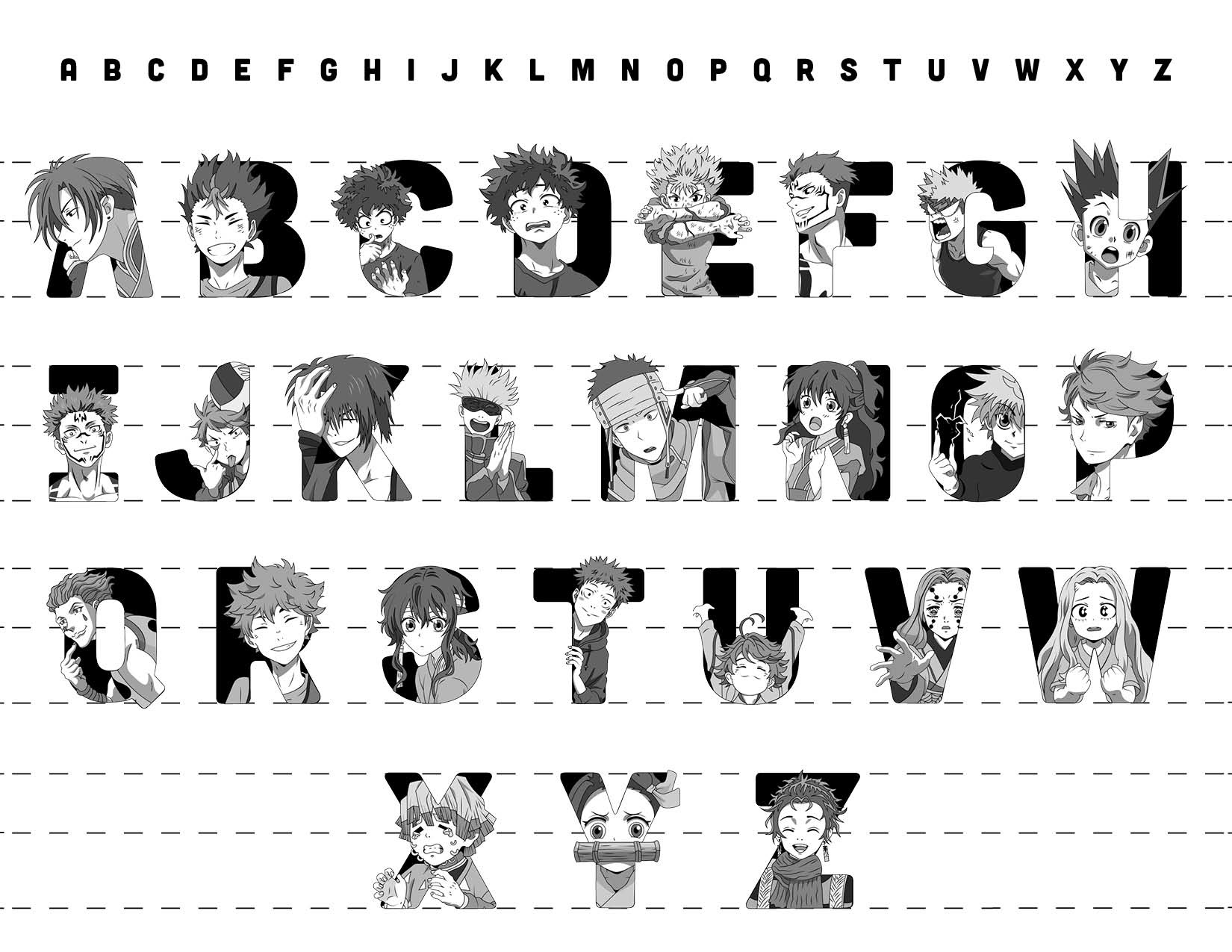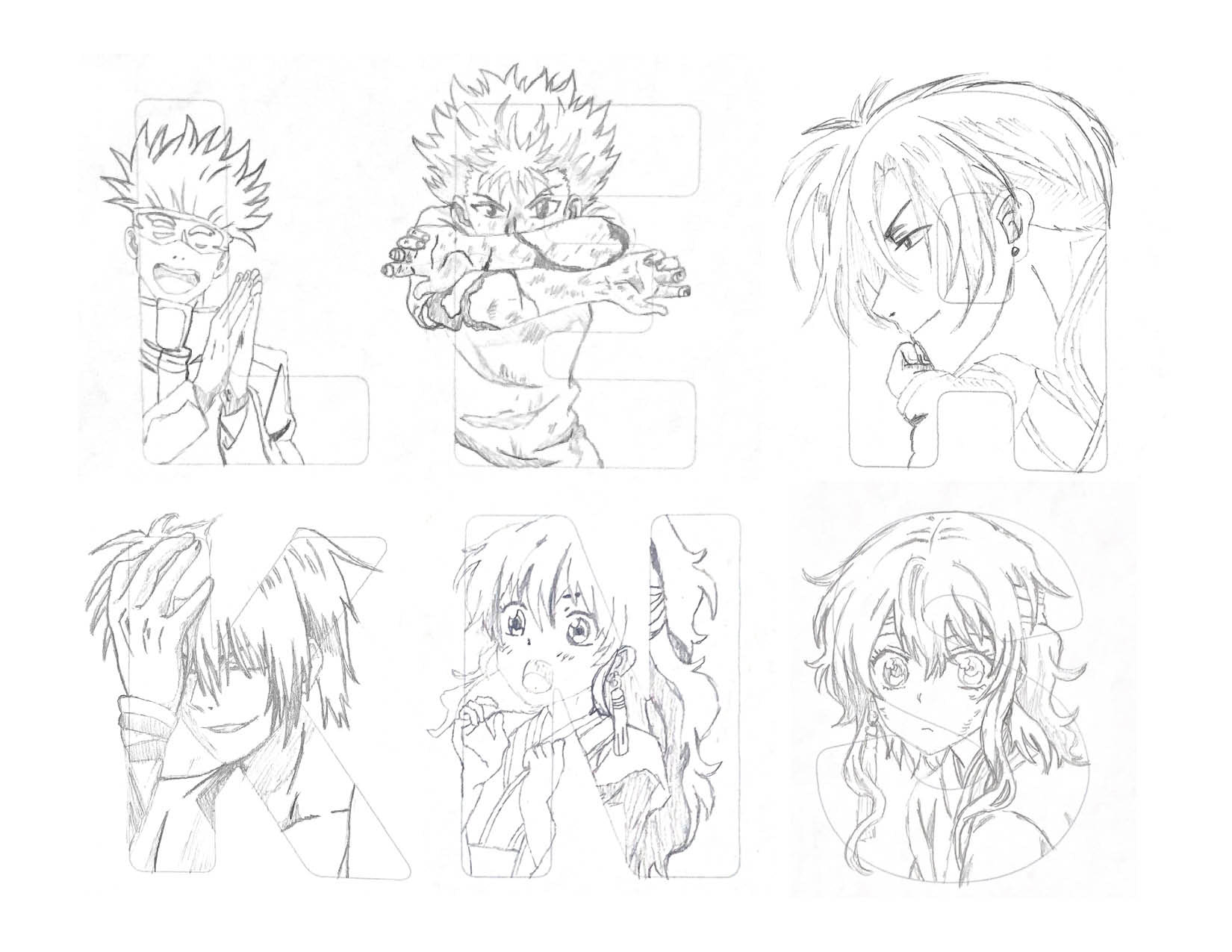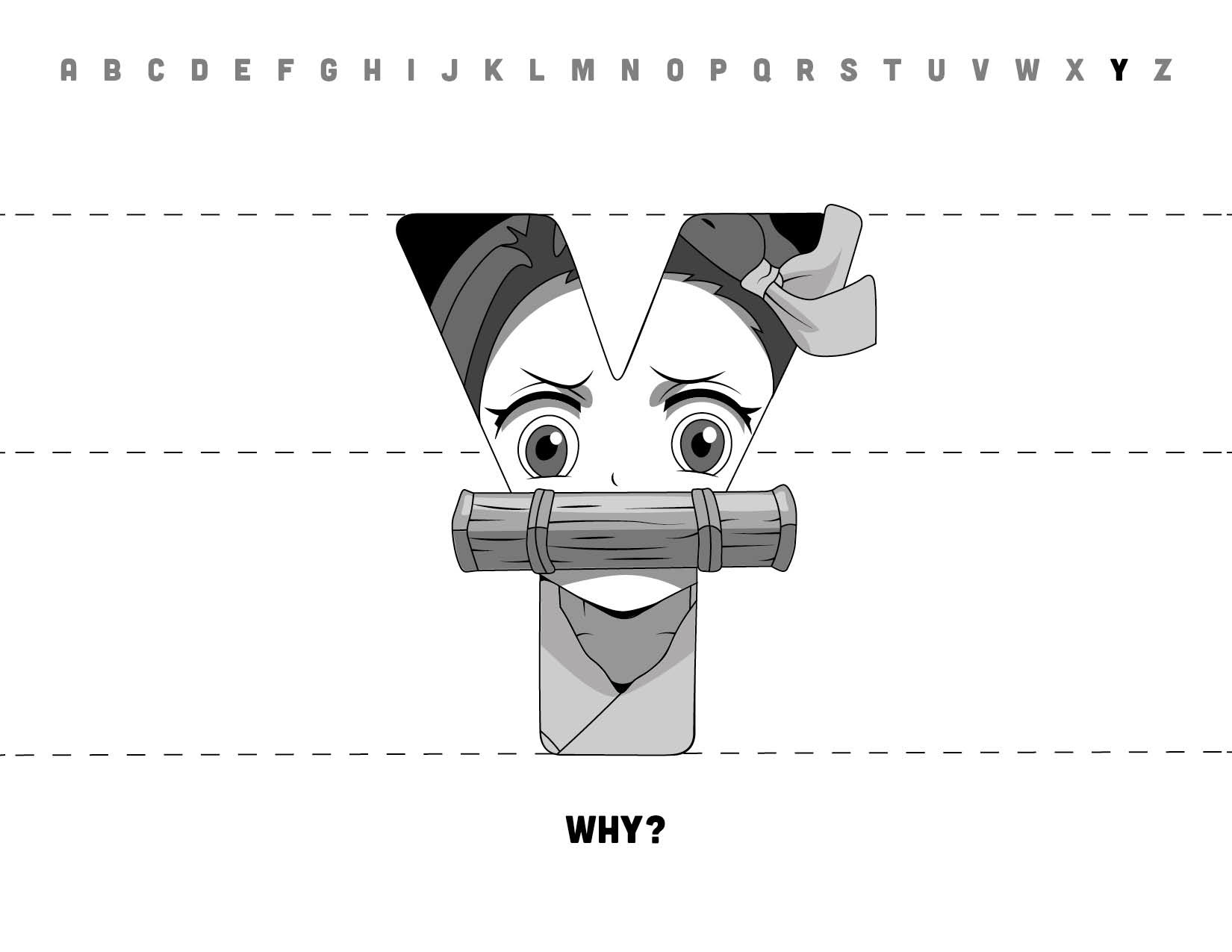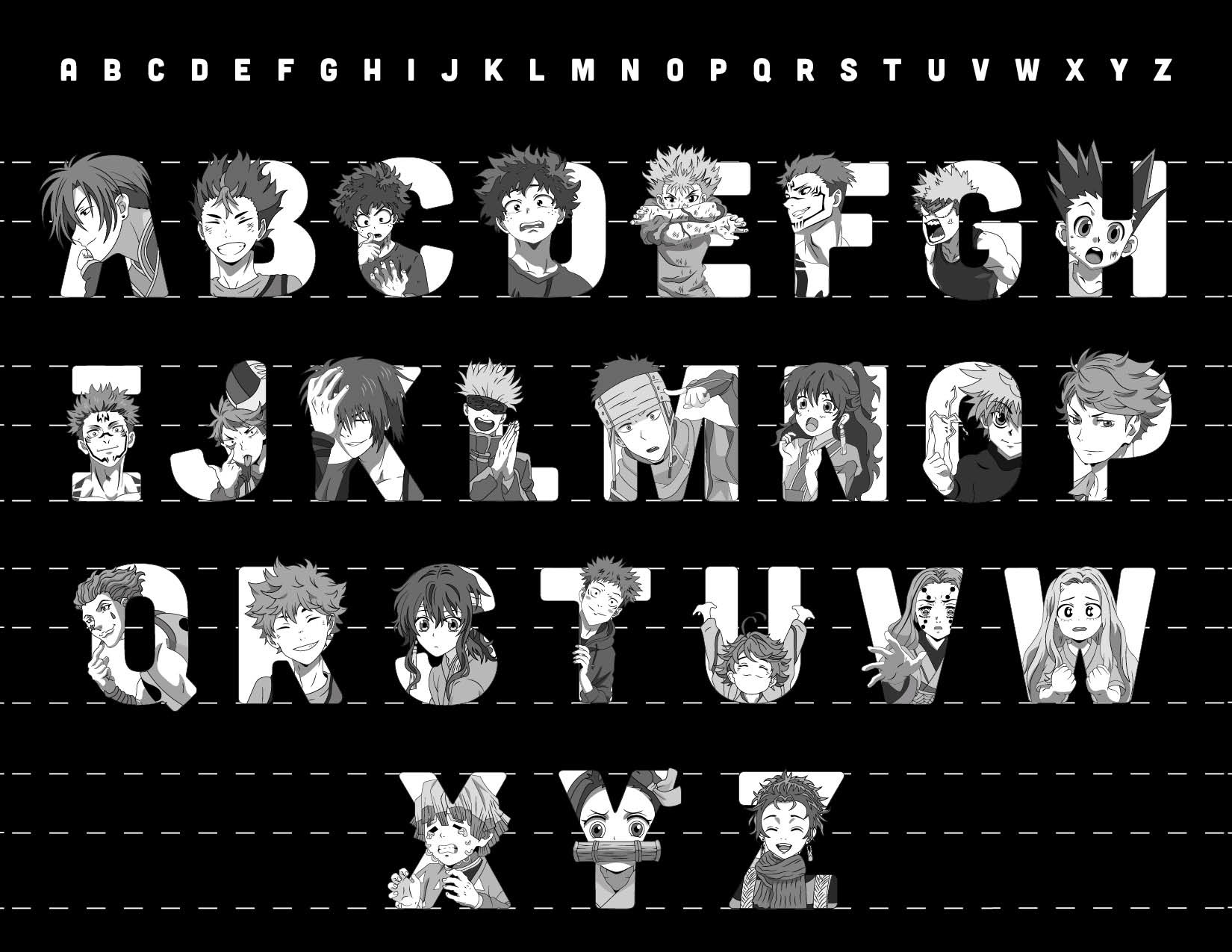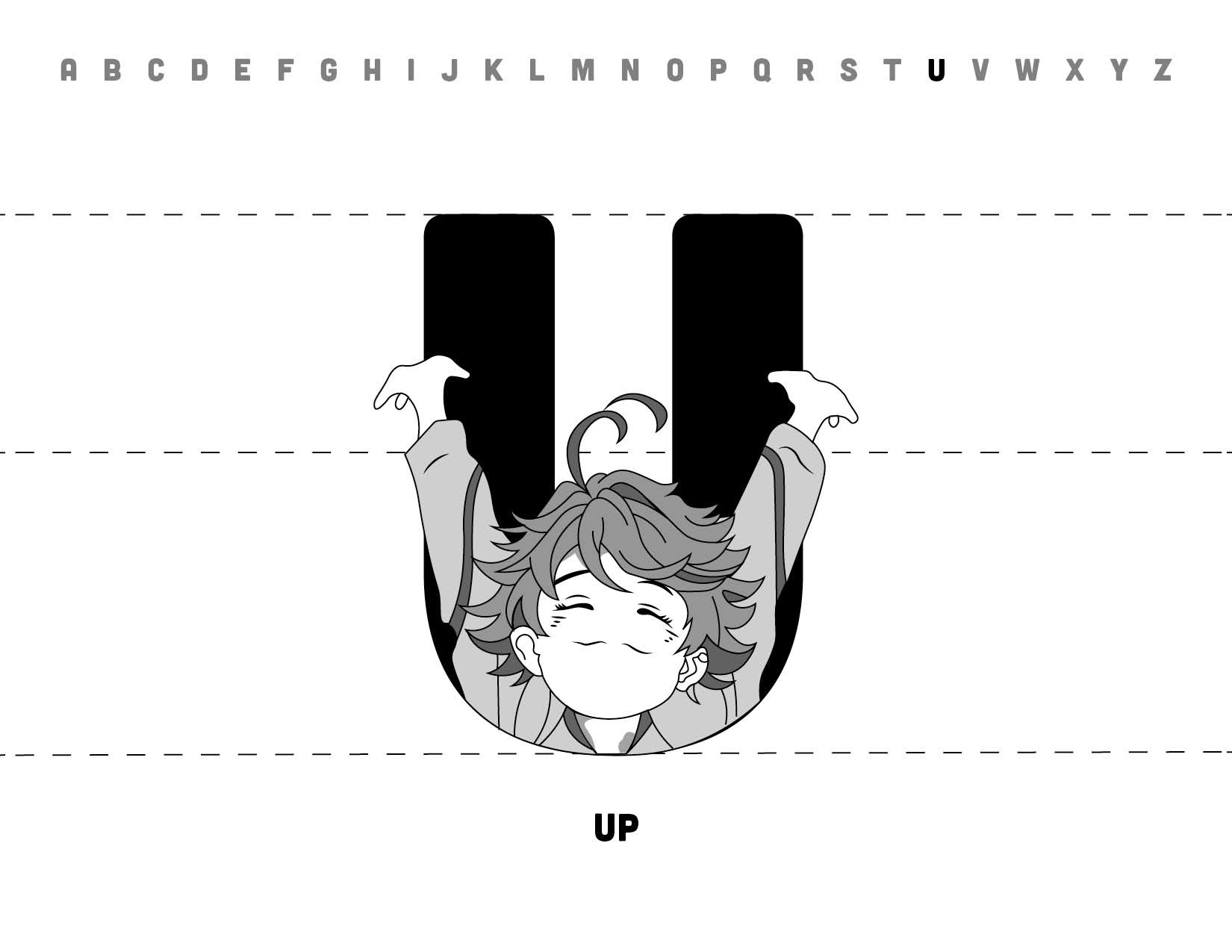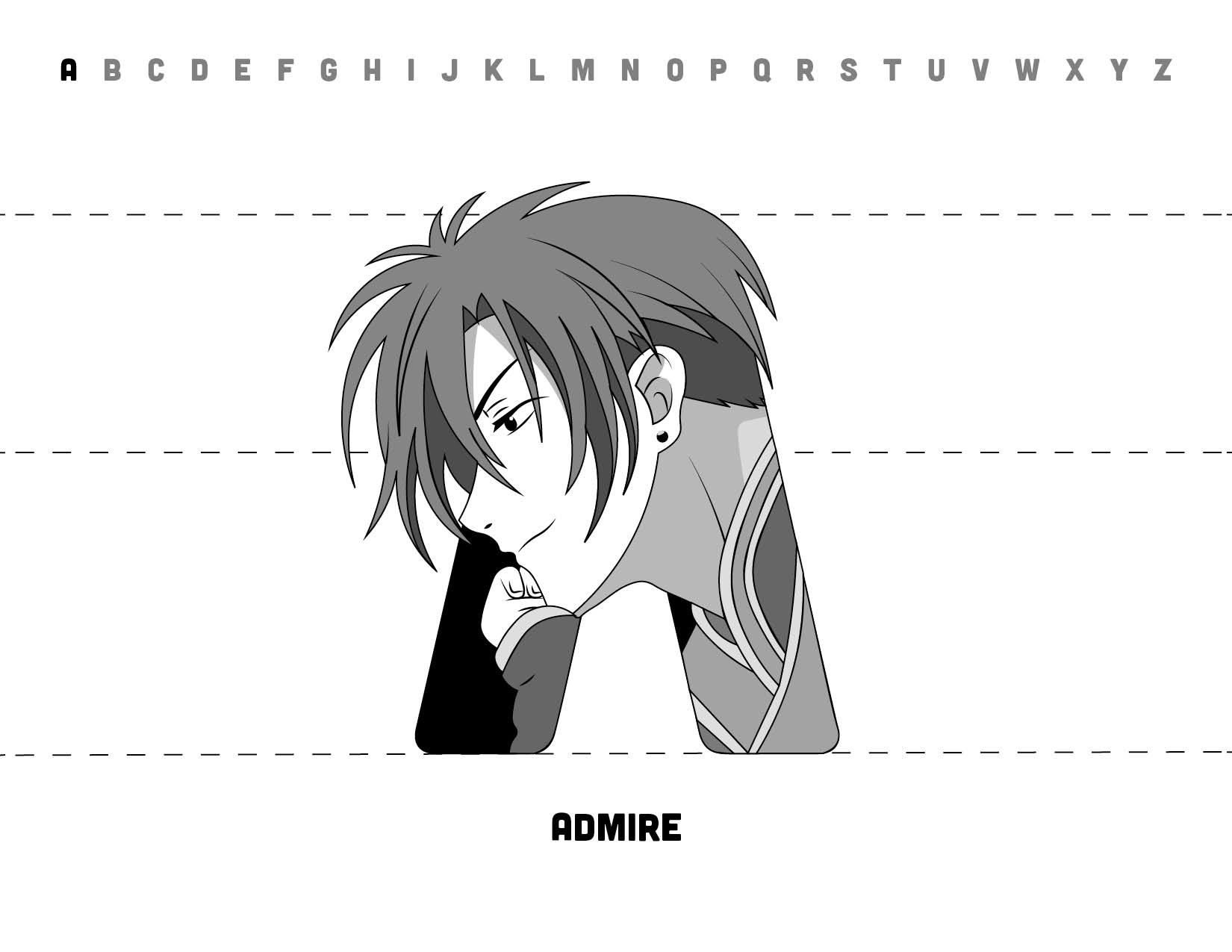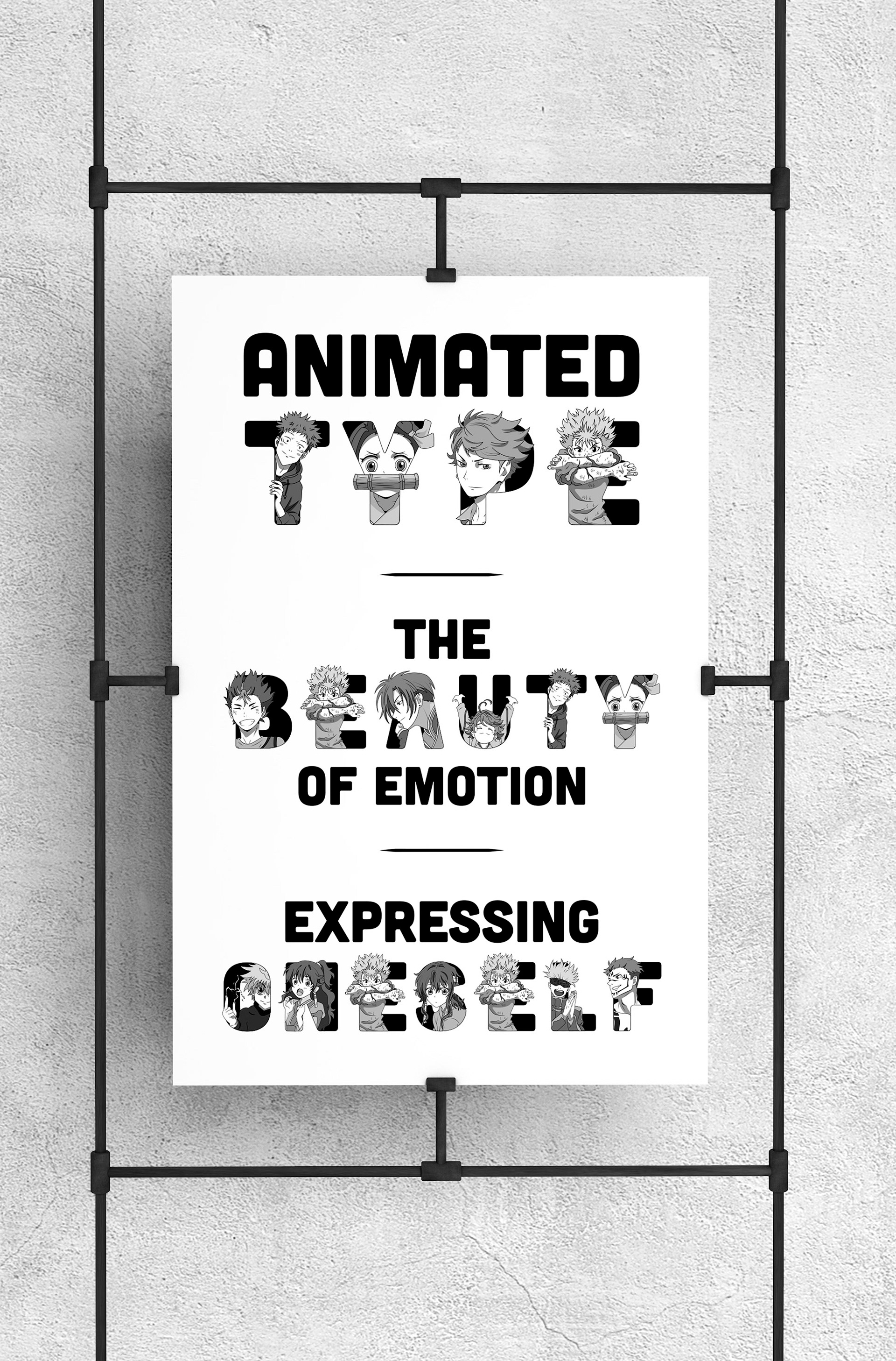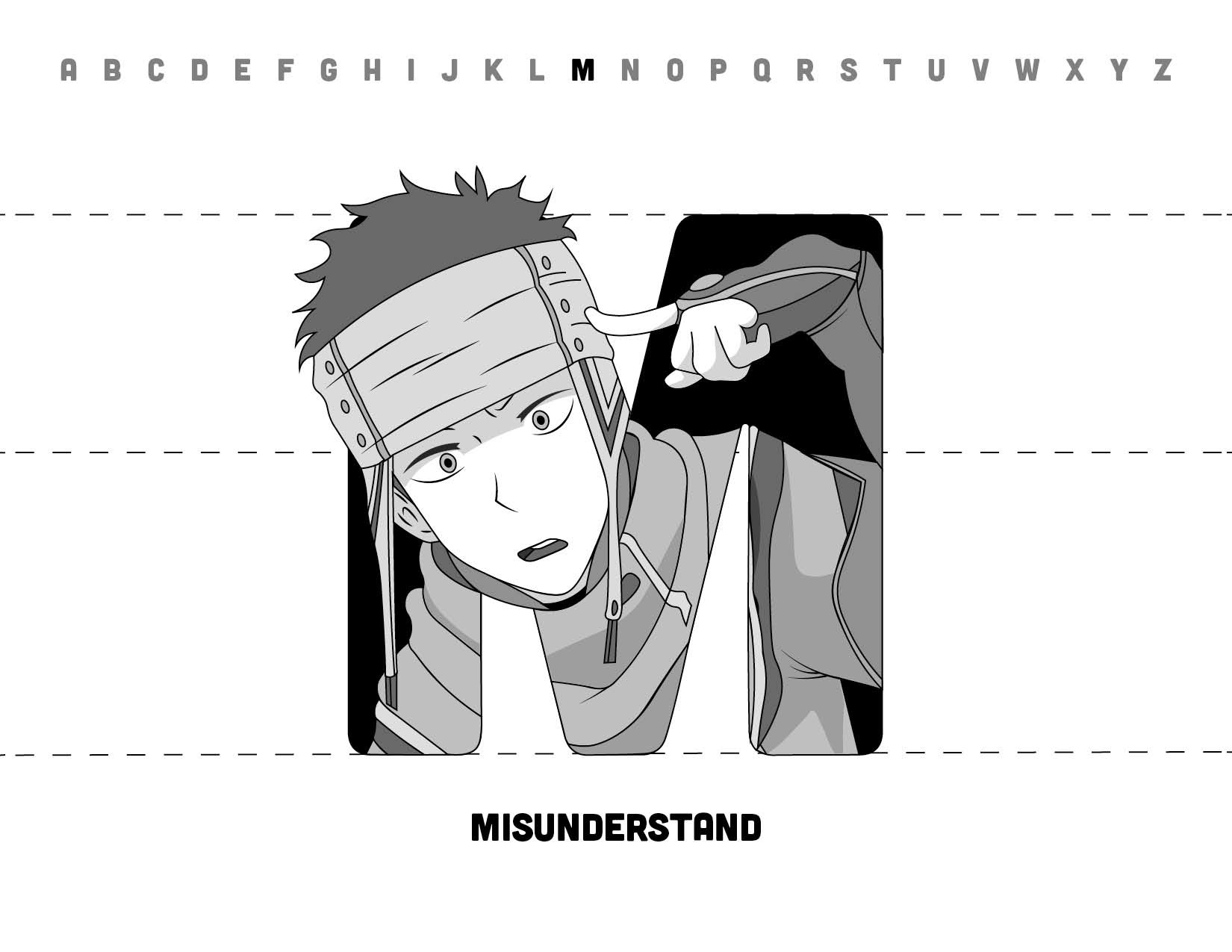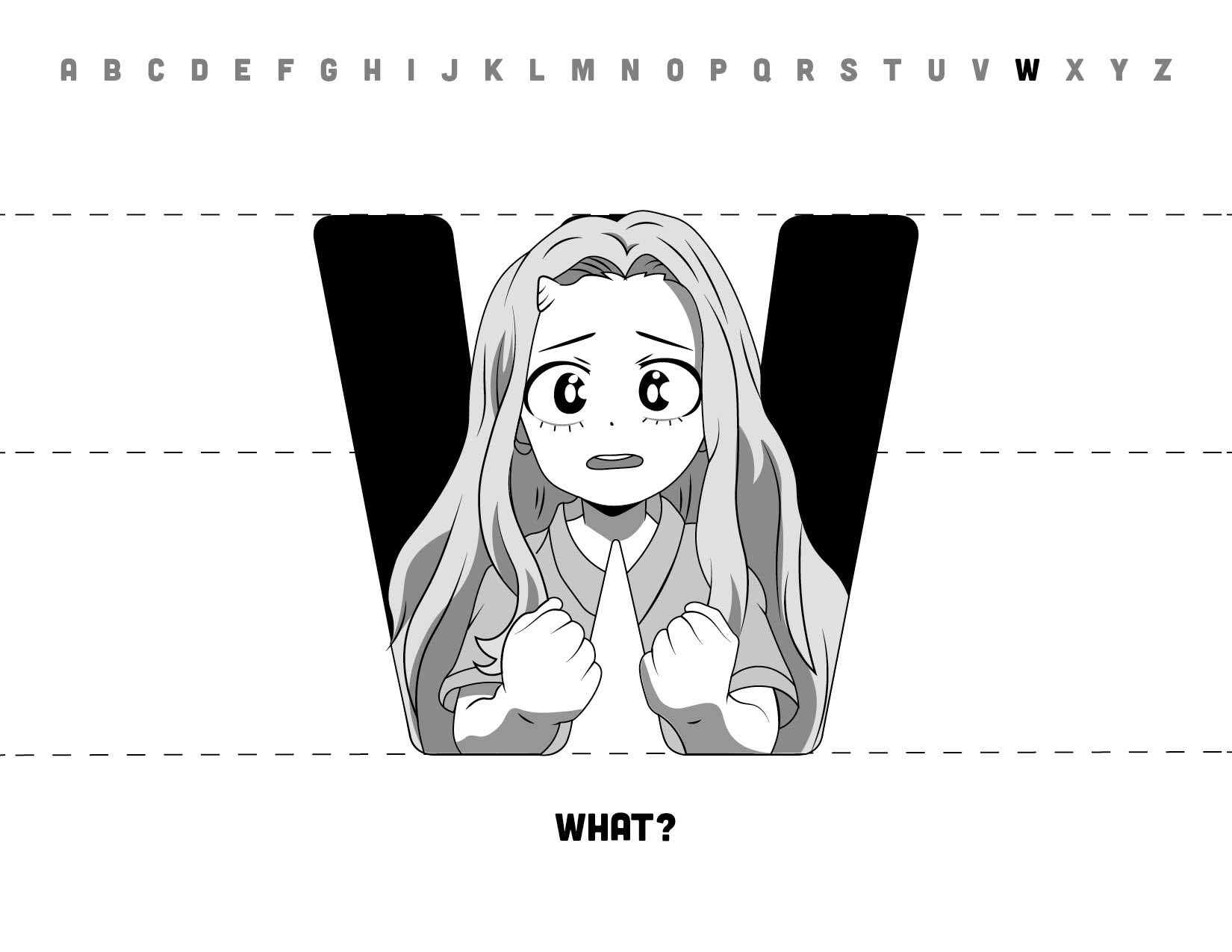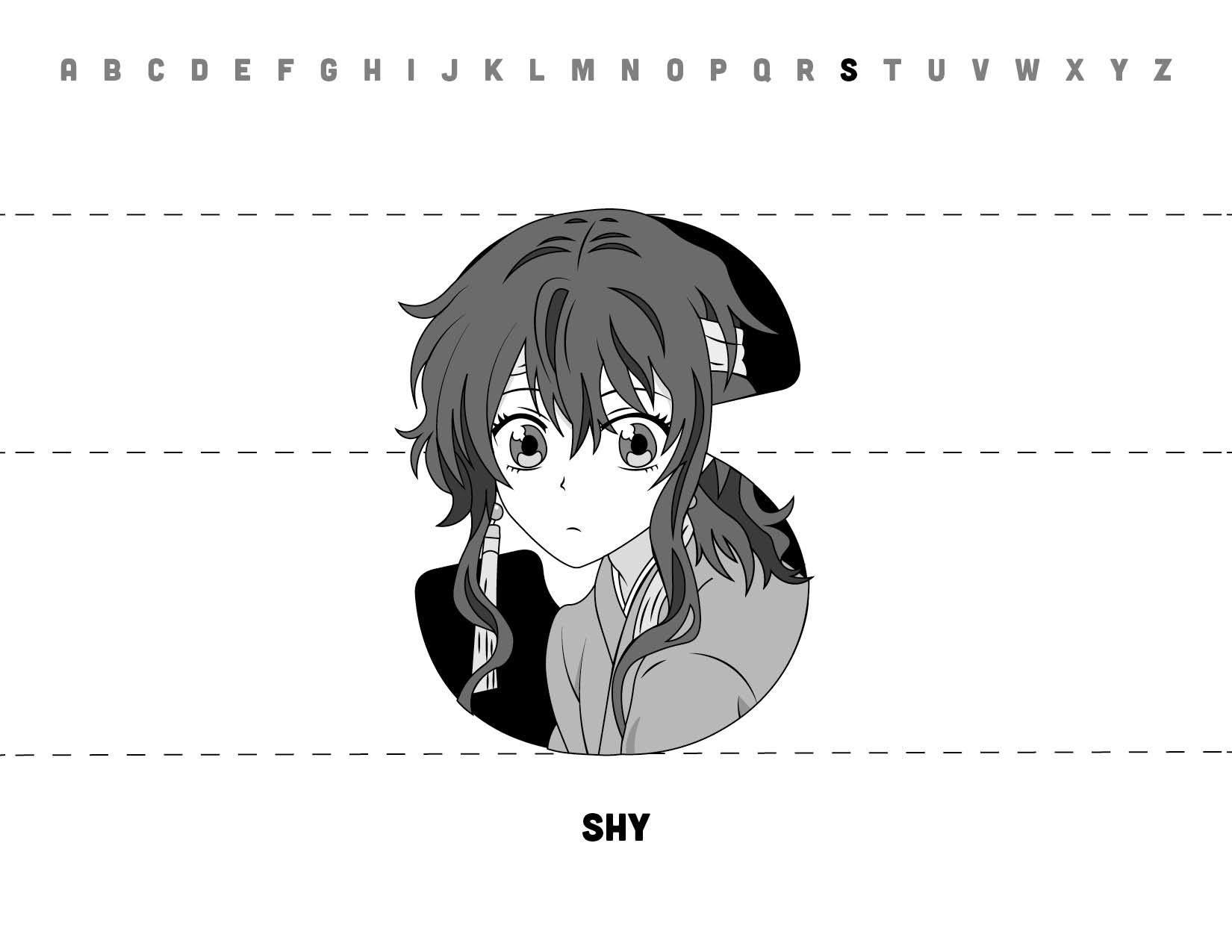
OVA Custom Typeface
Anime has a beautiful artistic style and all these shows are known for their attention to emotions. OVA is my custom illustration typeface I made this Spring 2021 and it is based on some popular/ my favorite animes that I've watched. I've drawn anime characters since high school and I wanted to bring back that passion for character drawings in my own custom way. After sketching the characters into the letter, the sketch was brought into Adobe Illustrator to be vectorized and then turned into an OTF file.
Hand Drawn Sketches
Individual Letters
Typographic Poster